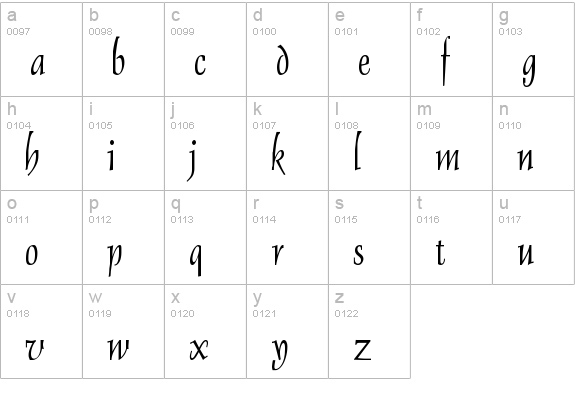
Dolphin Condensed Normal is the standard, neutral, condensed-width variant in the Dolphin typeface family \xE2\x80\x94 well suited to general body text, paragraphs, and standard typographic work.
Dolphin Condensed Normal font is a sleek and modern typeface that exudes elegance and sophistication. With its clean lines and smooth curves, this font is perfect for adding a touch of class to any design project. Whether you are creating a logo, website, or printed materials, Dolphin Condensed Normal font will make your text stand out with its timeless appeal. Best of all, Dolphin Condensed Normal font is available for free download at FontsMarket.com. This means you can easily access this high-quality font without breaking the bank. Don't miss out on the opportunity to elevate your designs with the exquisite Dolphin Condensed Normal font – download it today and see the difference it can make!